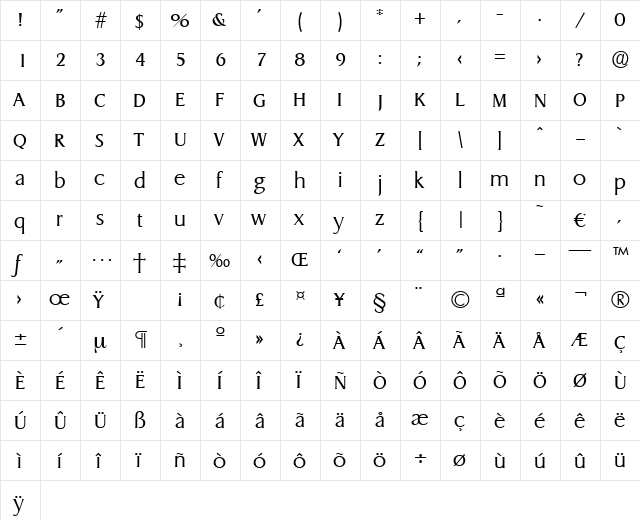
Dragon-Light Regular Font Preview
Dragon-Light Regular
Dragon-Light Regular Font Details
Design Context for Dragon-Light Typeface
Dragon-Light offers clean, dependable letterforms without strong stylistic allegiance, making it a practical choice for designers who need flexibility. Its slender proportions lend an understated elegance to any composition.